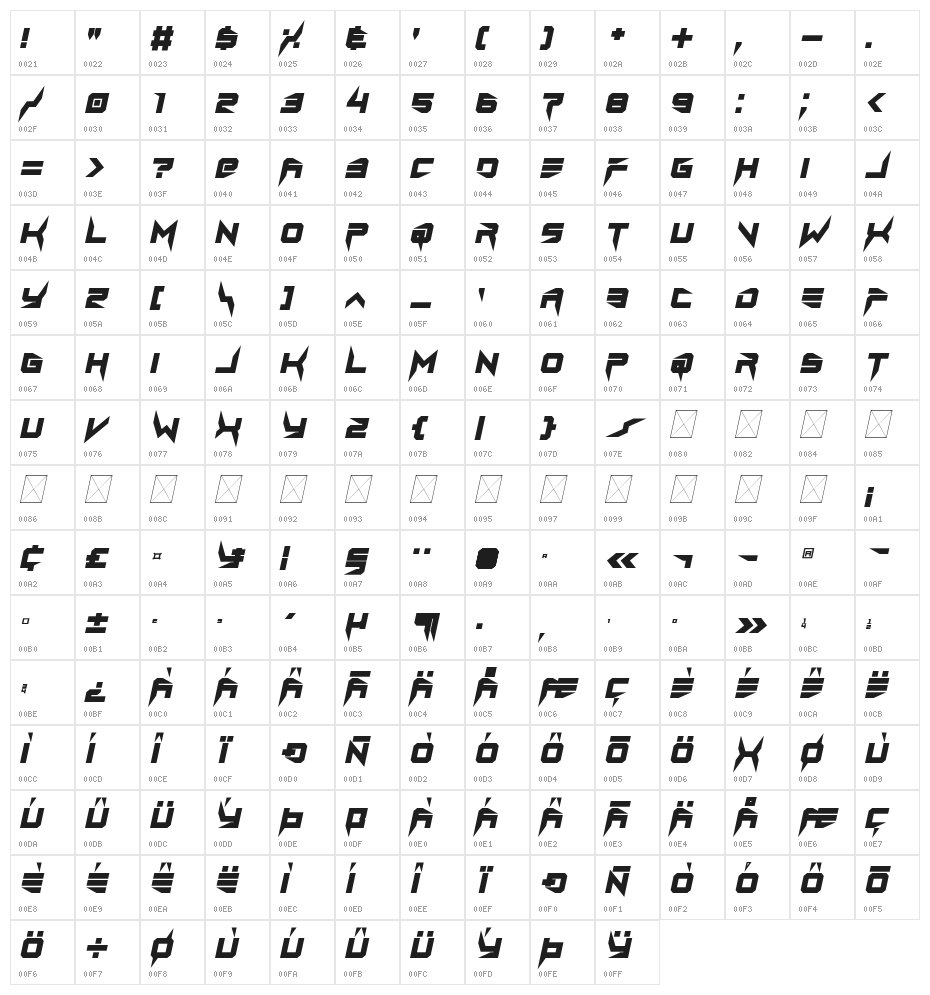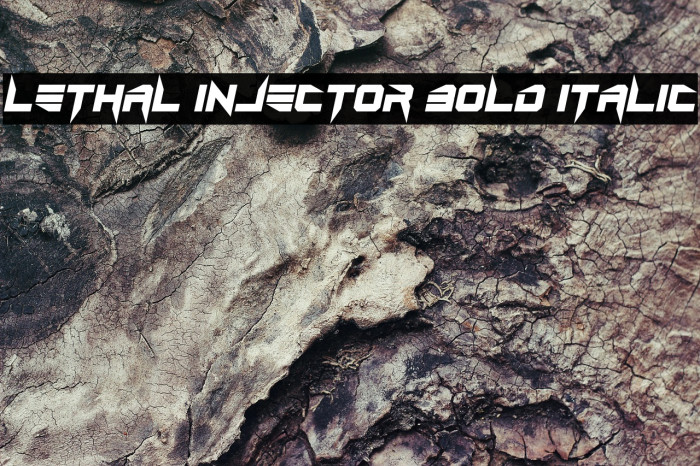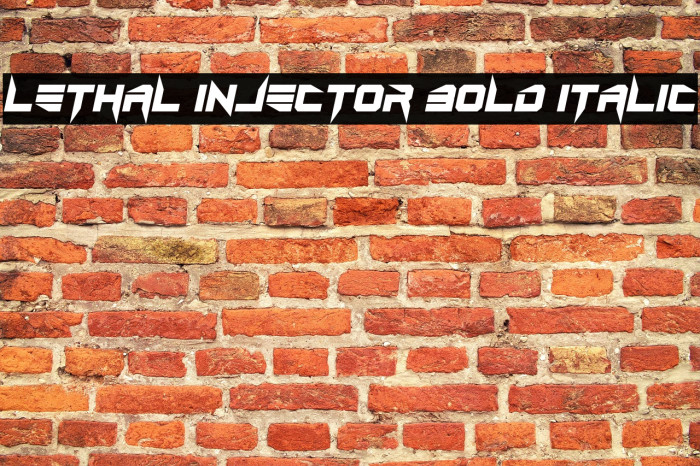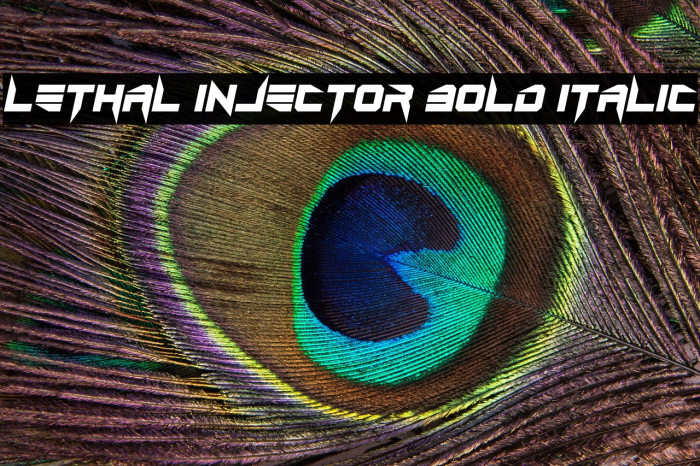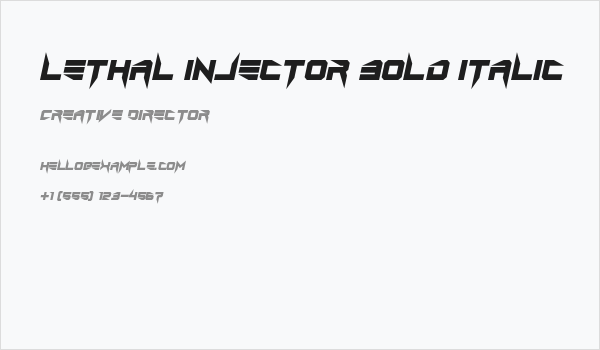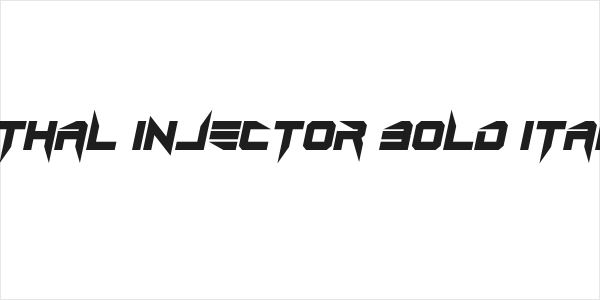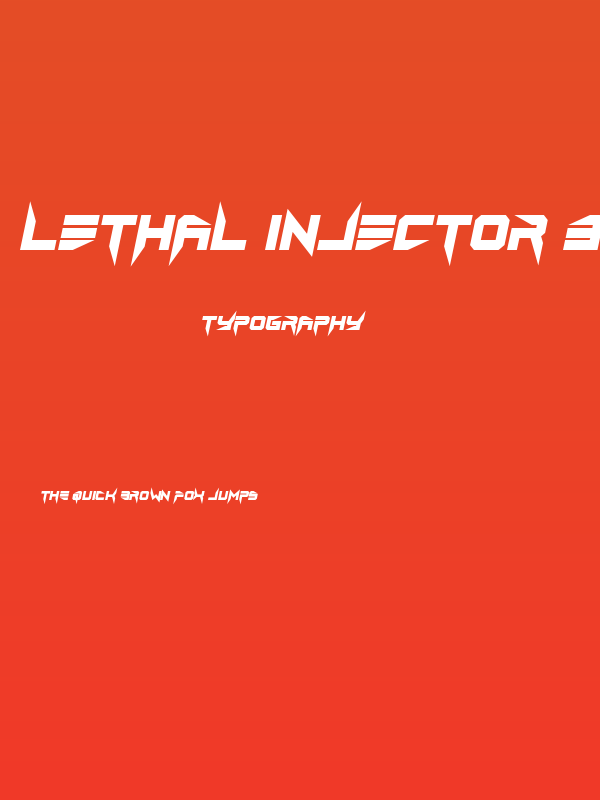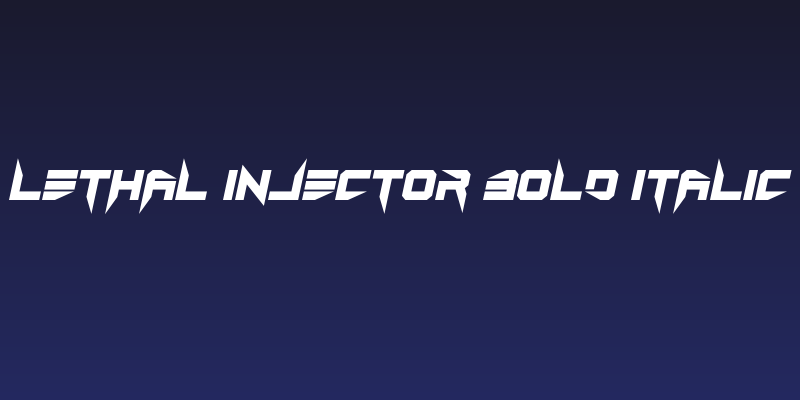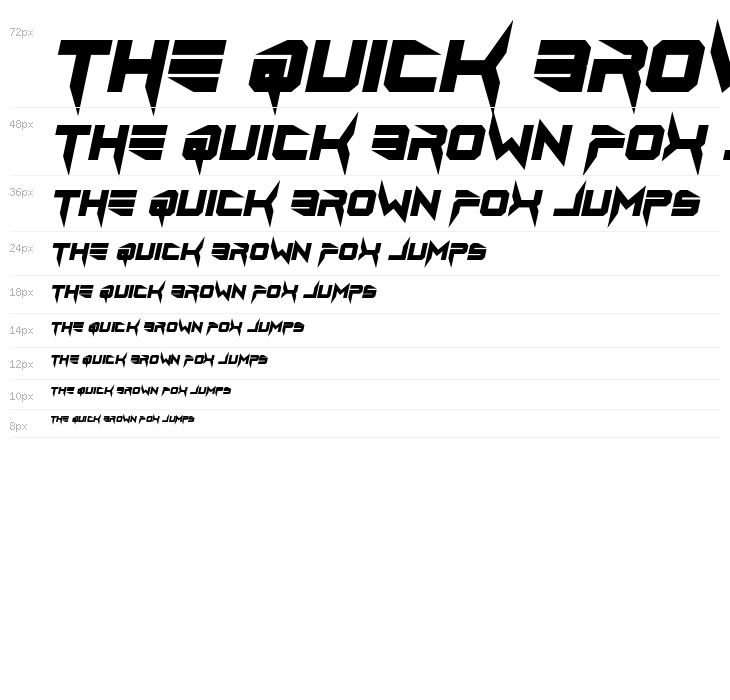
Lethal Injector Bold Italic Font
Lethal Injector Bold Italic Description
This font features a bold and aggressive style with sharp, angular edges and a futuristic aesthetic. The characters are heavily stylized, giving them a dynamic and edgy appearance. The uppercase and lowercase letters maintain a consistent design, with exaggerated points and slashes that create a sense of movement and intensity. The numbers and special characters follow the same design principles, ensuring uniformity across all glyphs. The italic slant adds to the font's energetic and modern feel, making it suitable for projects that require a strong visual impact.
| Proposed Projects | Ideal for video game titles, movie posters, sports branding, and any project needing a bold, futuristic look. |